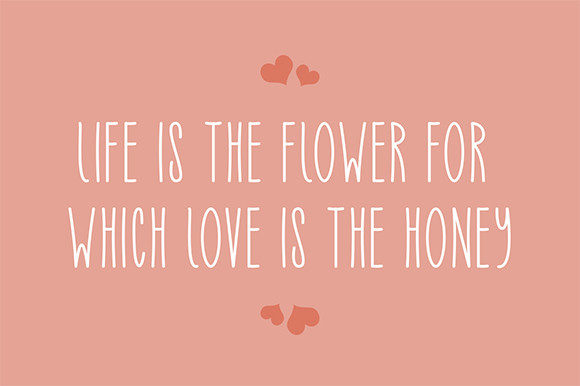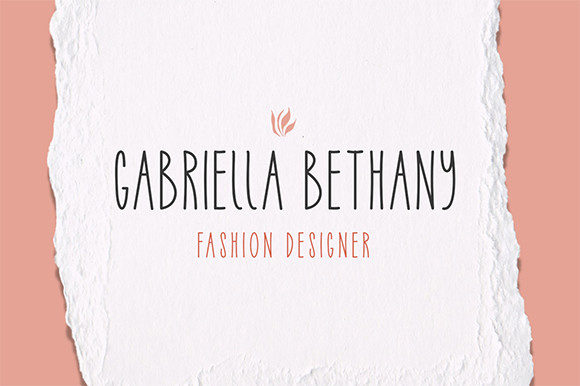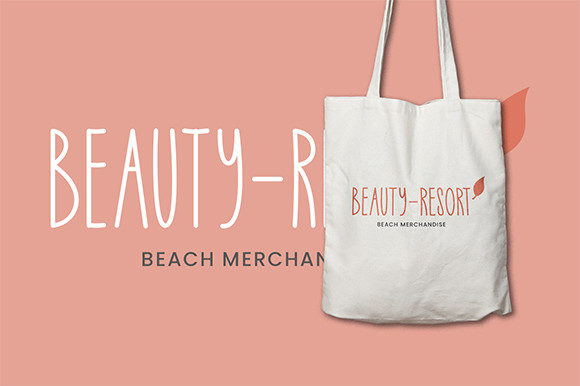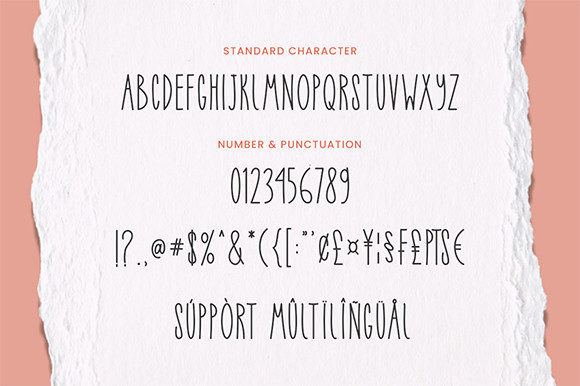
About Just Believe Font
“Just Believe” is a handwritten font that exudes playfulness and charm with its slim and intriguing appearance. This font carries a distinctive and interesting visual appeal that sets it apart.
The font’s charm lies in its ability to seamlessly embody a playful essence, making it well-suited for a variety of design applications. Whether applied to quotes, branding, books, logos, social media posts, love quotes, watermarks, invitations, or beyond, its adaptability is a notable asset.
“Just Believe” proves to be versatile in a multitude of contexts, enhancing visual communication through its unique handwritten style.
In essence, “Just Believe” is a font that encapsulates playfulness and interest. Its potential to elevate various design projects makes it an excellent choice for designers aiming to infuse a sense of charm and character into their creations.